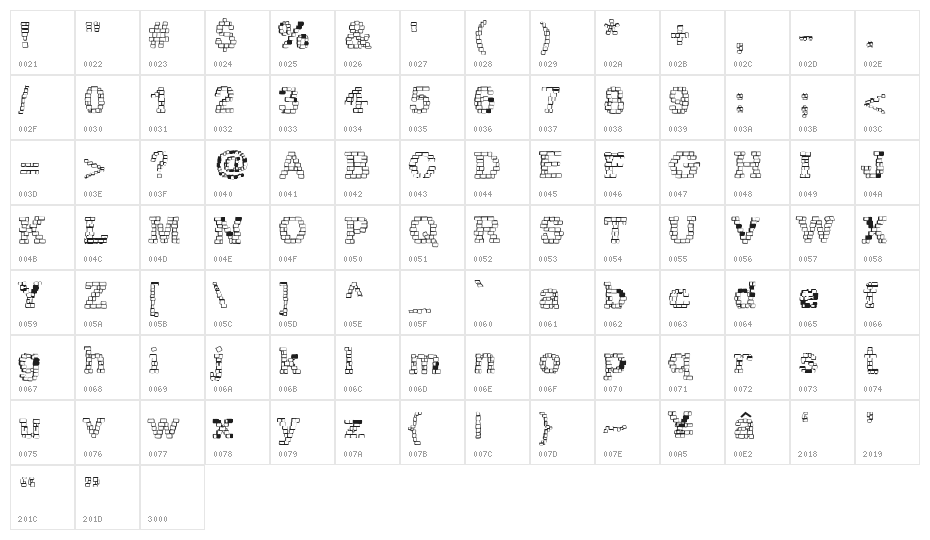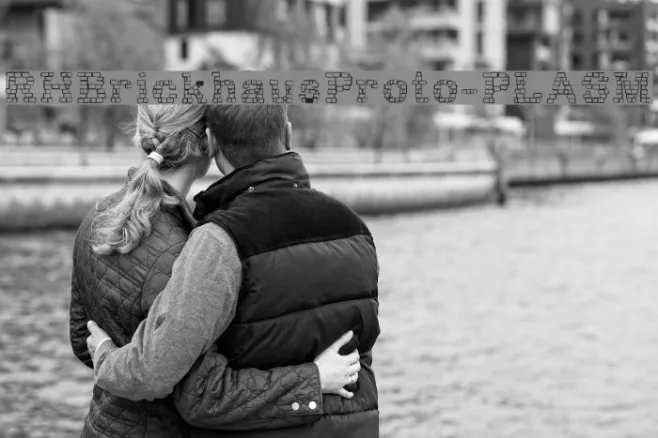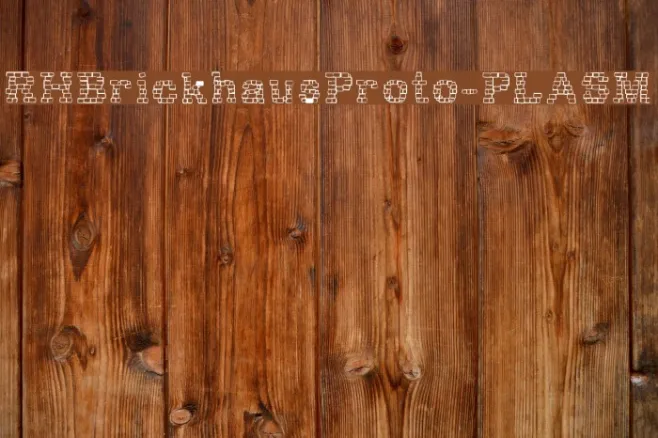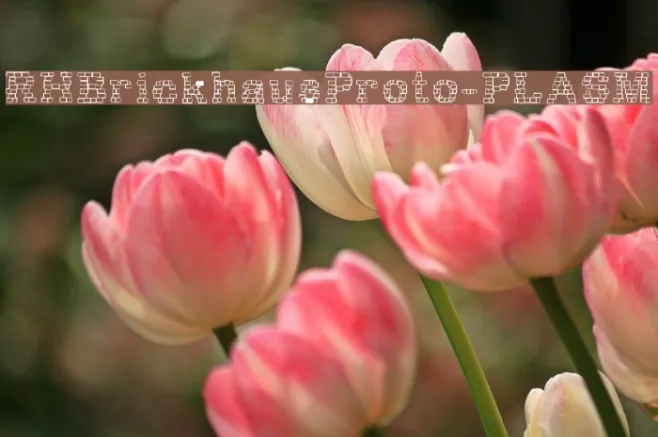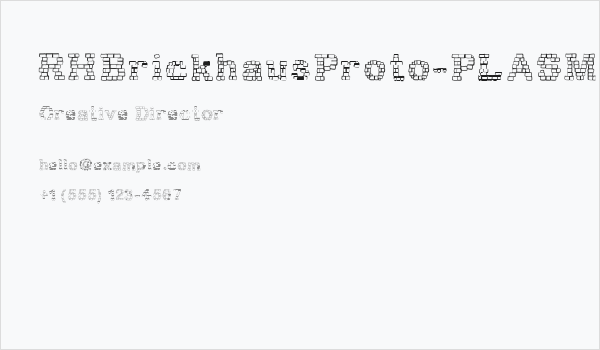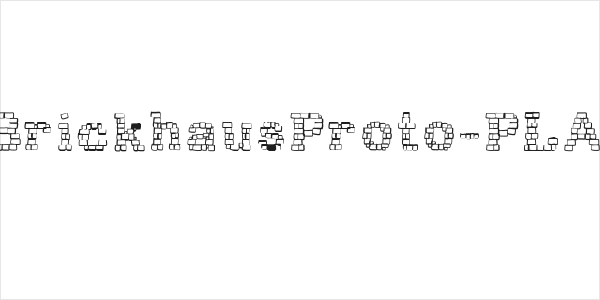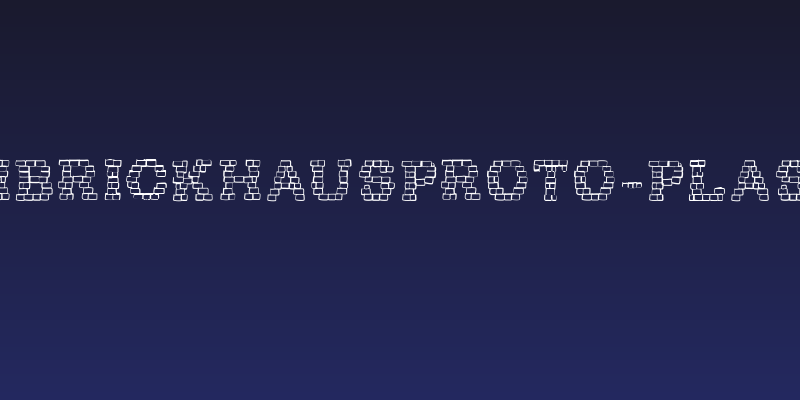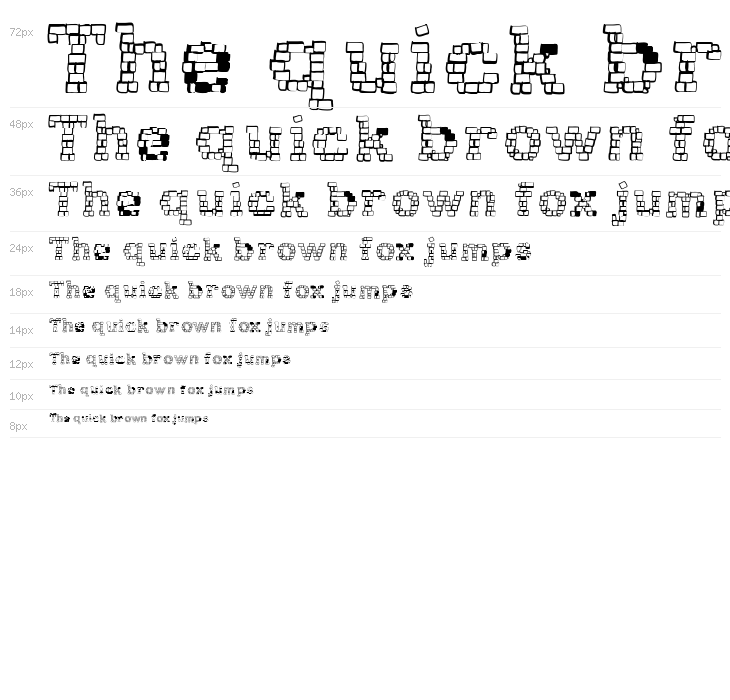
RHBrickhausProto-PLASM Font
RHBrickhausProto-PLASM Description
This font features a unique and playful design that mimics the appearance of bricks or blocks forming each character. The letters are constructed with a series of small, rounded rectangles that give a three-dimensional effect, creating a sense of depth and texture. The style is reminiscent of a hand-drawn or illustrative approach, making it stand out with its decorative and whimsical nature. The font maintains consistency across uppercase, lowercase, numbers, and special characters, ensuring readability while retaining its distinctive aesthetic. This design is perfect for projects that require a fun and engaging visual element.
| Proposed Projects | Ideal for children's books, playful branding, posters, and creative design projects. |